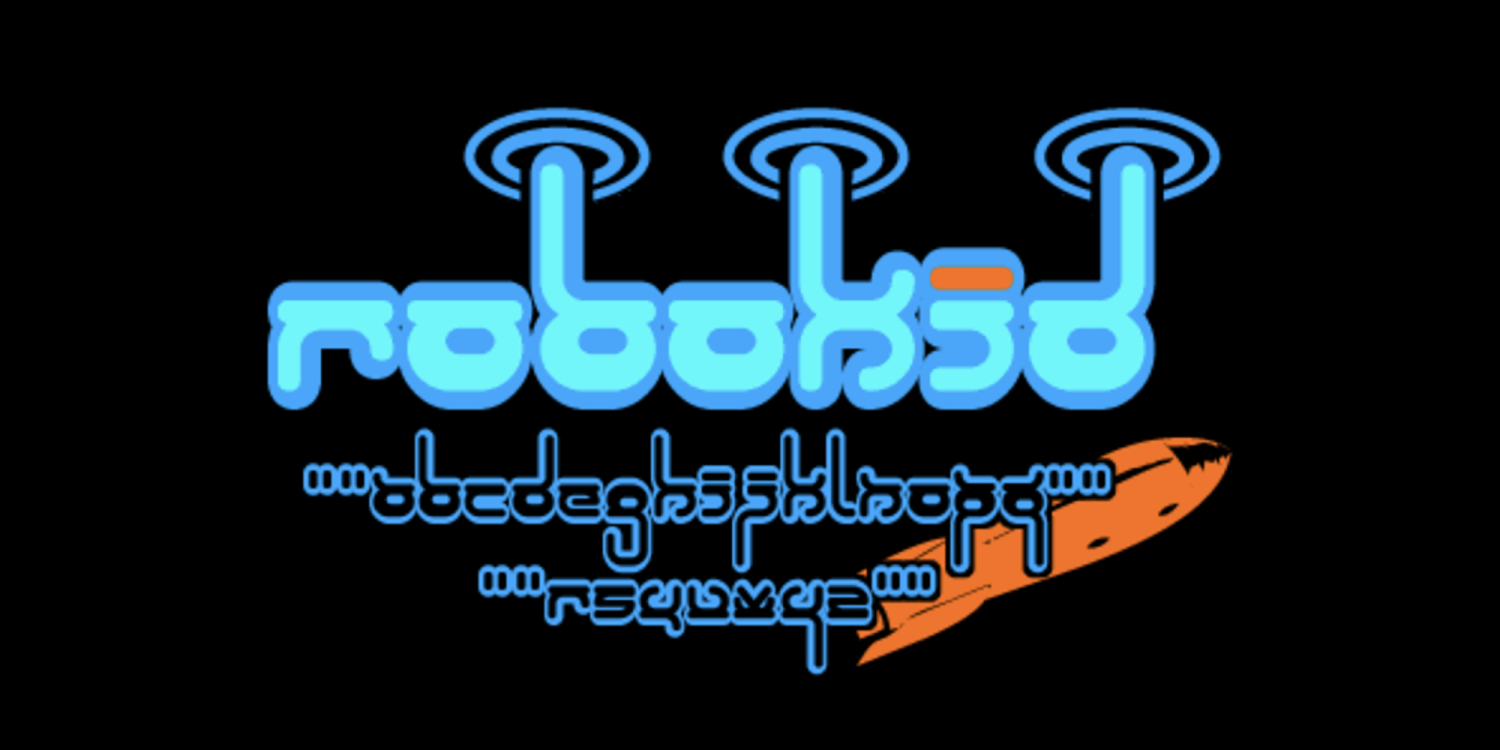
Robokid
About Robokid
Hey, lookie here! It is a futuristic font made entirely by me. This one is a little zany, but I think you will be able to work it into your Year 2000 designs.